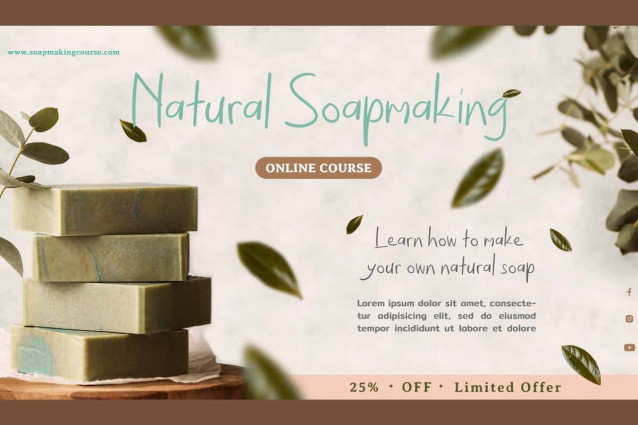
Beauty Effect Font
Beauty Effect Font is a casual font display of the organic feel of the marker in an easy feel. Giving natural elegance of handwriting made as authentic as possible with human handwriting. Perfect for banners, blogs, business card, covers, headline, printed material, product label, quotes, stationery, sticker, template, title, watermark, website, more.
Beauty Effect Font has been carefully crafted to ensure that each letter flows smoothly into the next. So you can freely arrange the desired letter combination. You’ll get a natural feel to your design that’s perfect for author, beauty clinic, beautician, cosmetic, graphic design, handicraft, home furniture, photography, publisher, spa salon, skincare, and more.